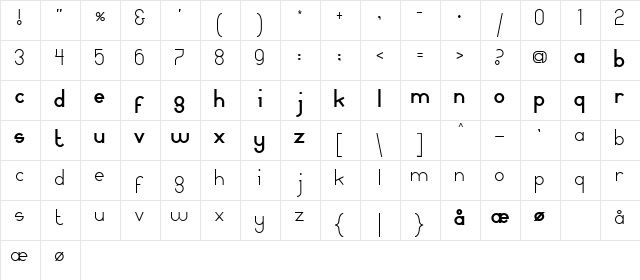
MammaGamma Regular Font Preview
MammaGamma Regular
Design Context for MammaGamma Typeface
MammaGamma is a composed and adaptable typeface that performs quietly and consistently across a wide range of design contexts.